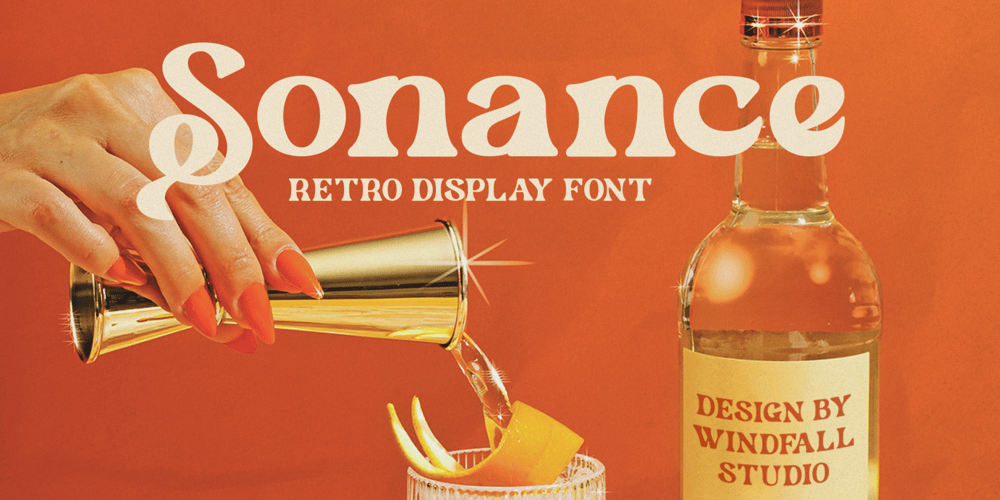
Sonance Font Family was designed by Anggia Putri Premitasari and published by Windfall Studio. Sonance contains 1 styles and family package options. Introducing Sonance, a bold and stylish retro serif font designed by Windfall Studio. Sonance brings the classic vibes of the past with a modern twist, making it perfect for various design projects that require a touch of nostalgia and elegance. This typeface is meticulously crafted to provide versatility and beauty, making your designs stand out effortlessly.